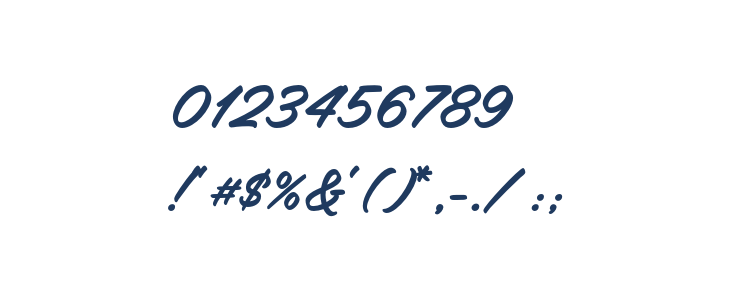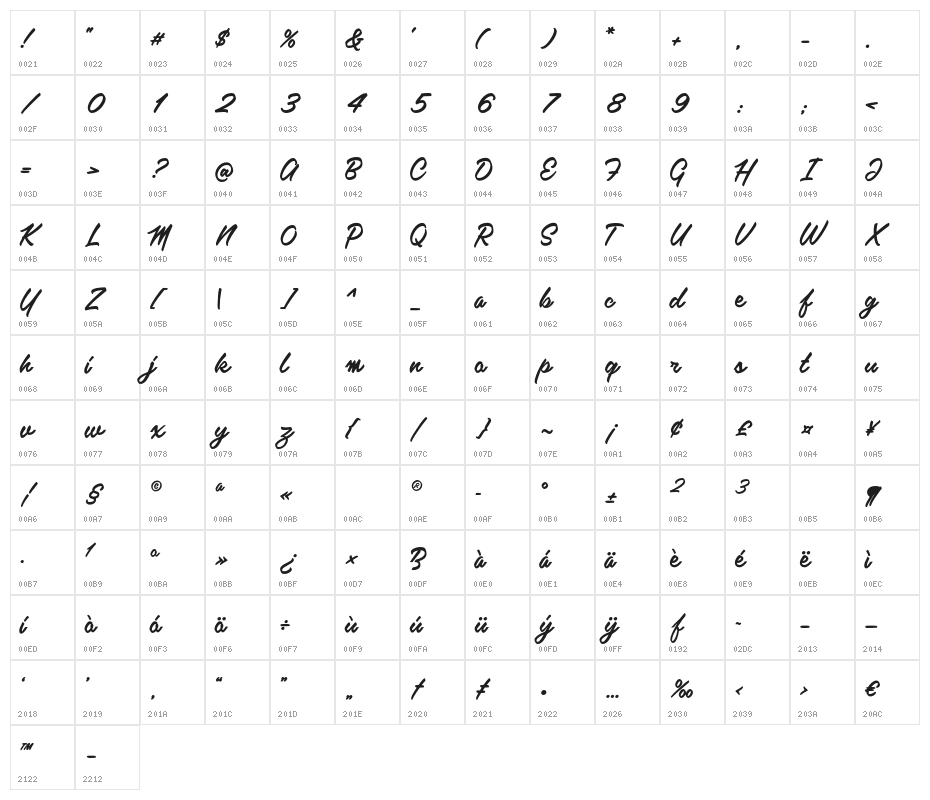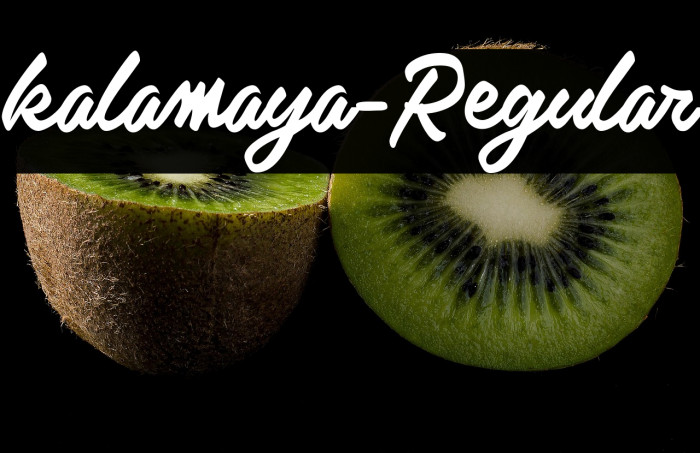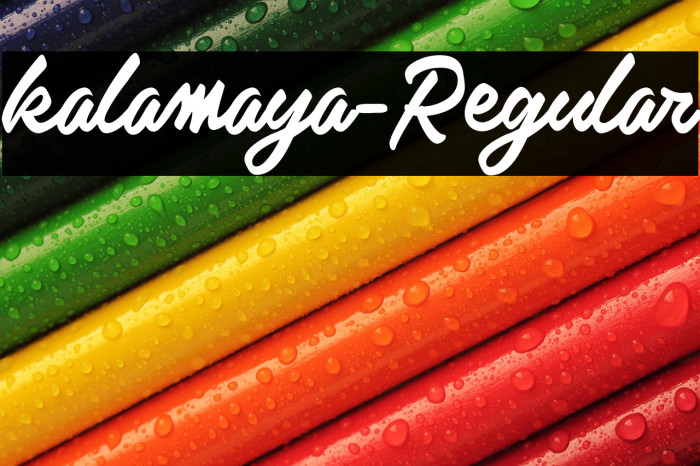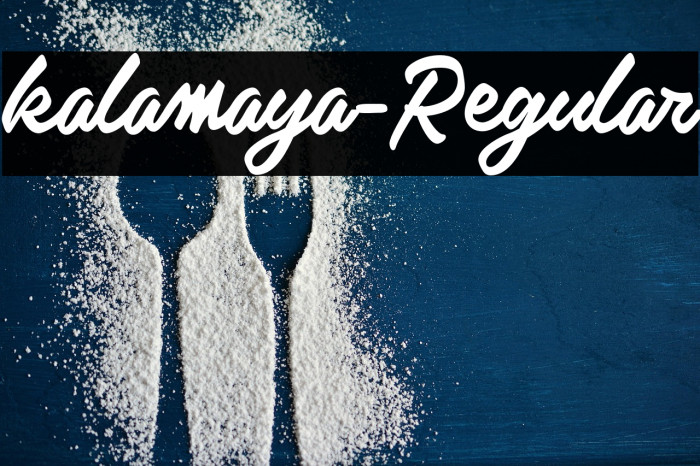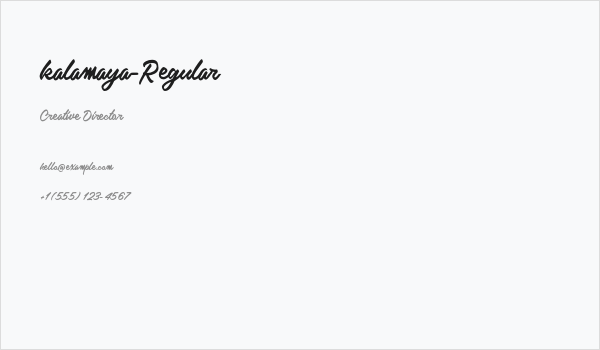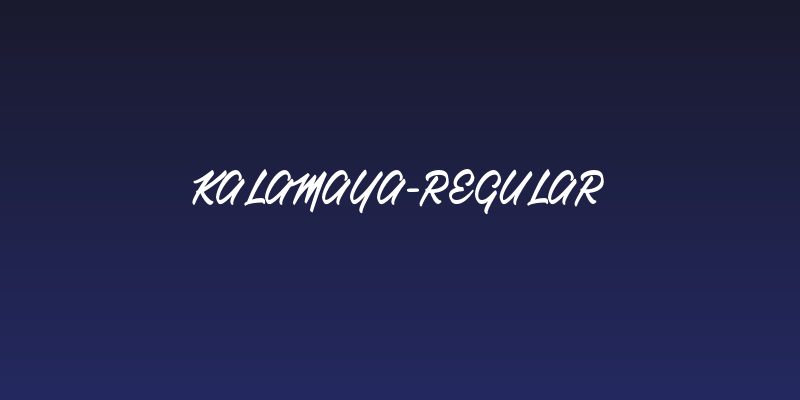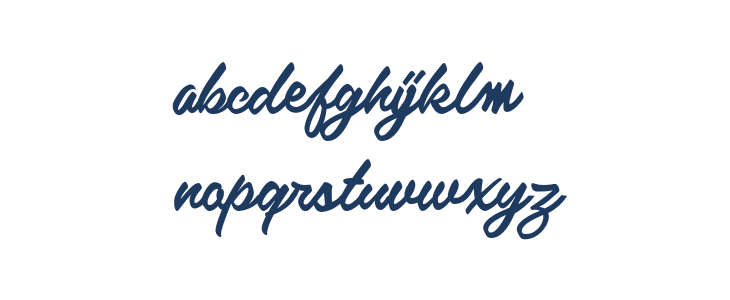
kalamaya-Regular Font
This font features a flowing, cursive style that mimics natural handwriting with a smooth and elegant appearance. The characters are connected, giving a sense of continuity and fluidity. The uppercase letters are bold and slightly slanted, while the lowercase letters maintain a consistent flow with rounded edges. Numbers and special characters are designed to match the overall script style, ensuring uniformity across all elements. The font's playful yet sophisticated look makes it suitable for a variety of creative projects.